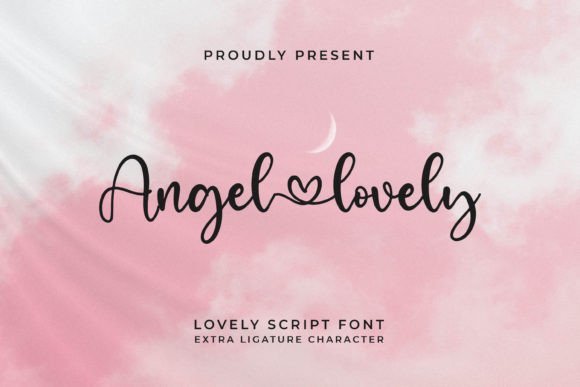
The Perfect Script Font for Your Next Design Project
Have you ever been brainstorming for hours, stuck on the perfect font to complete your design project, only to have a spark of inspiration strike when you least expect it? That’s exactly what happened to me when I stumbled upon the Angel Lovely Font. Its elegant and whimsical script style is sure to add a touch of sophistication to any design.
The Angel Lovely Font is a versatile and stylish script font that’s perfect for creating beautiful wedding invitations, thank you cards, quotes, and logos. Its unique handwritten feel makes it a valuable asset for designers looking to add a personal touch to their designs. Whether you’re a professional designer or a creative enthusiast, the Angel Lovely Font is sure to become your go-to script font.
Angel Lovely Font Key Features
- Font Family: Angel Lovely Font is a beautiful, elegant script font that is perfect for adding a touch of sophistication to your designs.
- Unique Characteristics: Features beautiful, flowing connections between letters, making it perfect for creating a romantic or elegant atmosphere in your designs.
Designer Review: Angel Lovely Font
Overall, I found the Angel Lovely Font to be a charming and elegant choice for any design project. ✨ Its cursive script style and intricate details evoke a sense of whimsy and romance, making it perfect for wedding invitations, baby announcements, or any other occasion that calls for a touch of sweetness.
- Legibility: The font is clear and easy to read, even at smaller font sizes. ✨
- Variety: The font comes in multiple weights and styles, offering a range of options for designers to choose from. ✨
- Emotional Connection: The font’s playful, handwritten feel can help designers create a sense of emotional connection with their audience. ✨
However, there are a few limitations to consider: ⚠️ The font may not be suitable for formal or professional designs, as its cursive style can come across as overly casual. Additionally, the font’s intricate details may be difficult to read at very small font sizes. ⚠️
Overall, I would give the Angel Lovely Font 4 out of 5 stars. While it has its limitations, its unique charm and elegance make it a great choice for designers looking to add a touch of whimsy to their projects.
For optimal results, use Angel Lovely Font for titles, headings, and other display text. It’s perfect for creating a whimsical and feminine touch in your designs.
Use it for wedding invitations, baby shower invitations, or other special occasions that require a touch of elegance and romance.